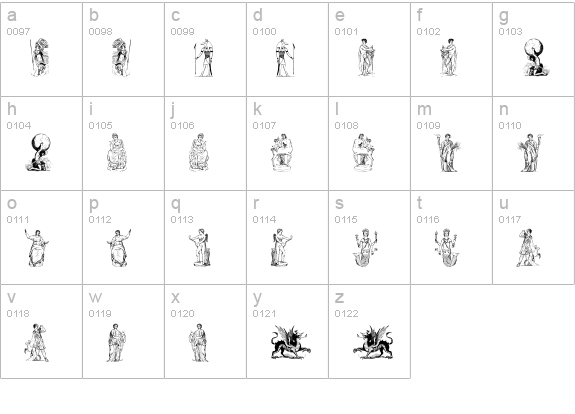
mythology one Font Details
Mythology One font is a stunning and elegant typeface inspired by ancient myths and legends. With its intricate details and mystical charm, this font brings a sense of magic and wonder to any design project. The gracefully flowing curves and sharp edges of Mythology One create a harmonious balance that is both captivating and enchanting. This font is perfect for adding a touch of mythology and fantasy to your projects, whether you're designing a book cover, logo, or website. Its unique style and timeless appeal make it a versatile choice for a wide range of creative endeavors. And the best part? Mythology One font is available for free download at FontsMarket.com. So go ahead and unleash your creativity with this captivating and mesmerizing typeface today!